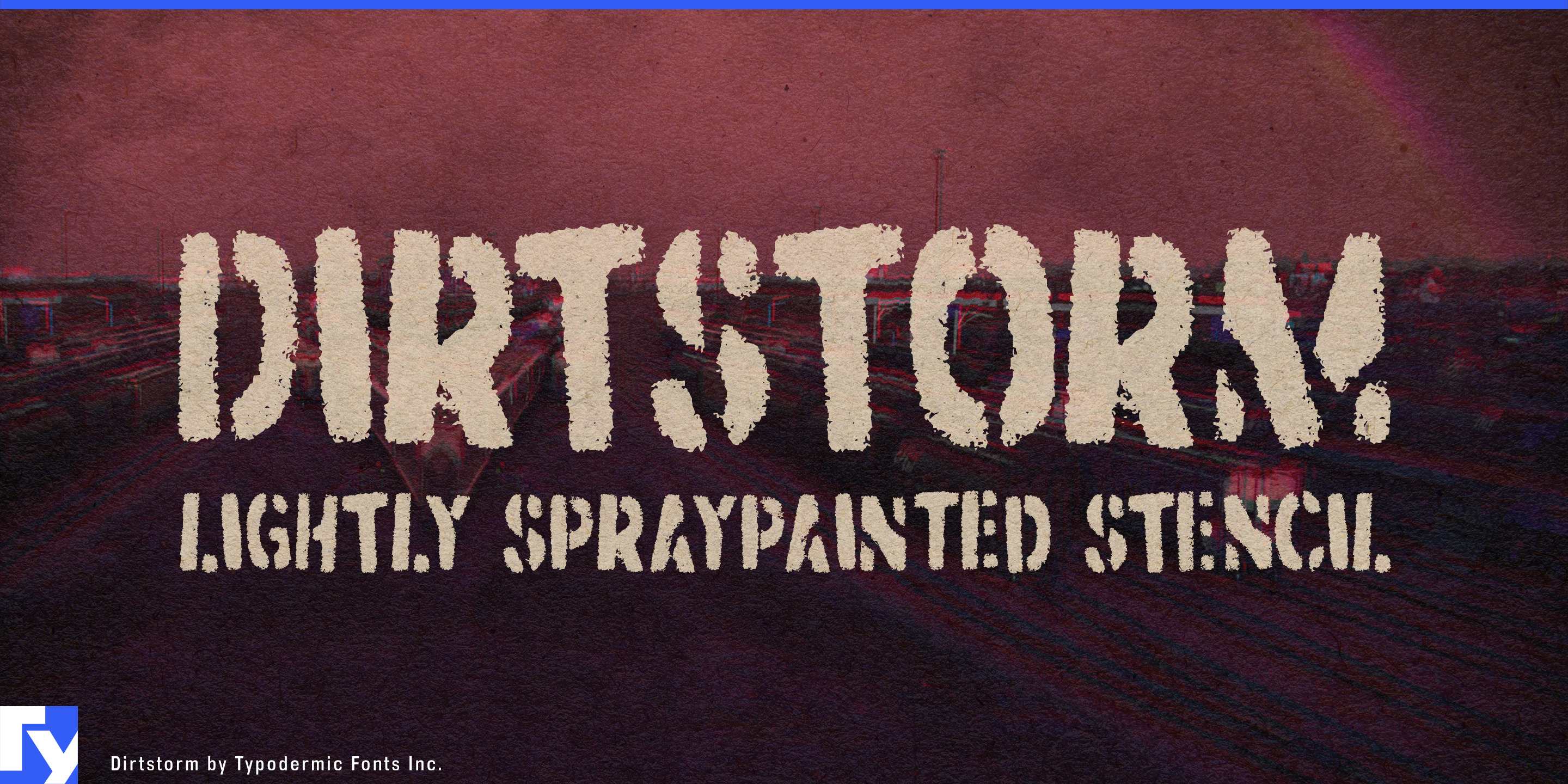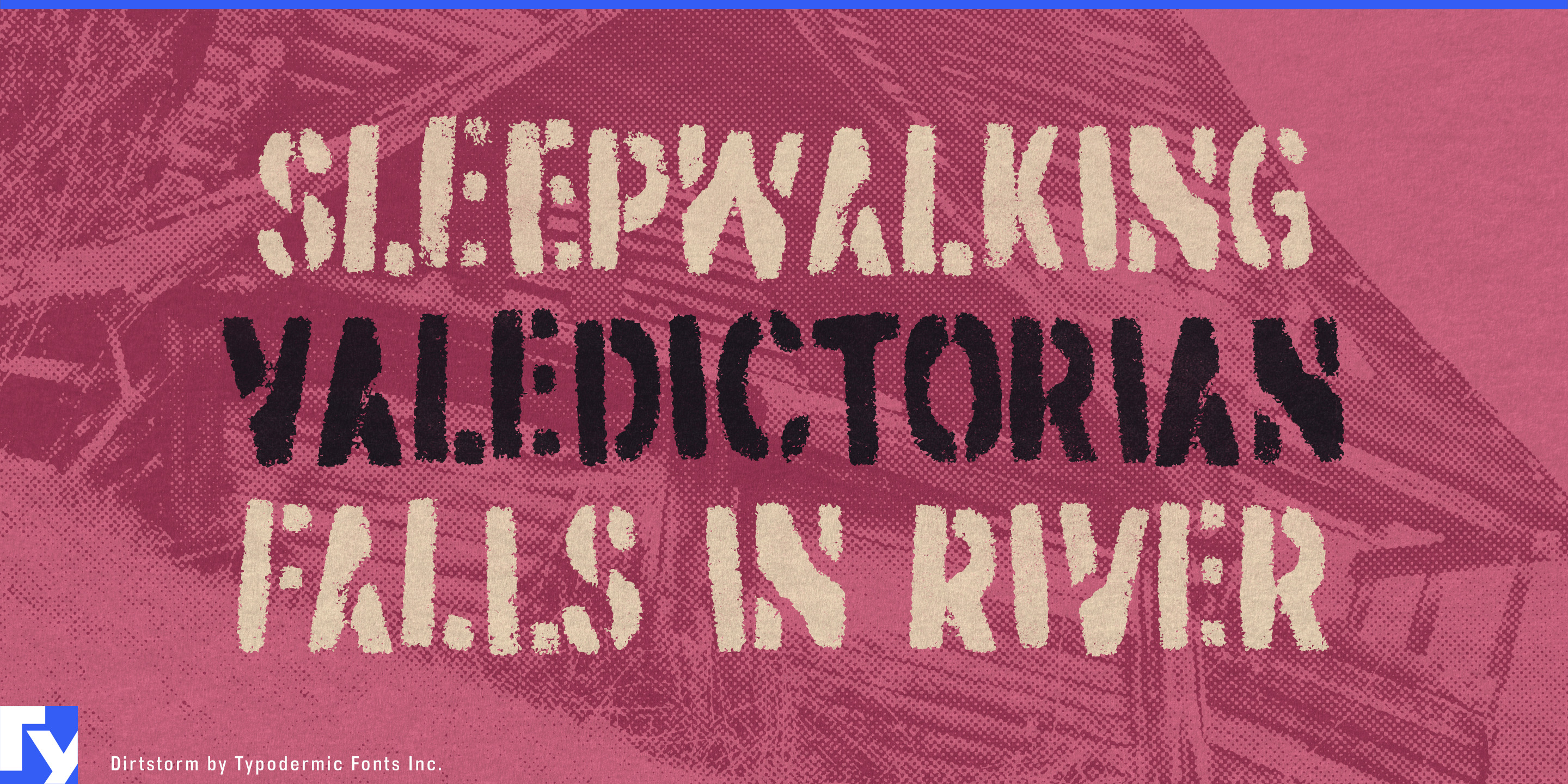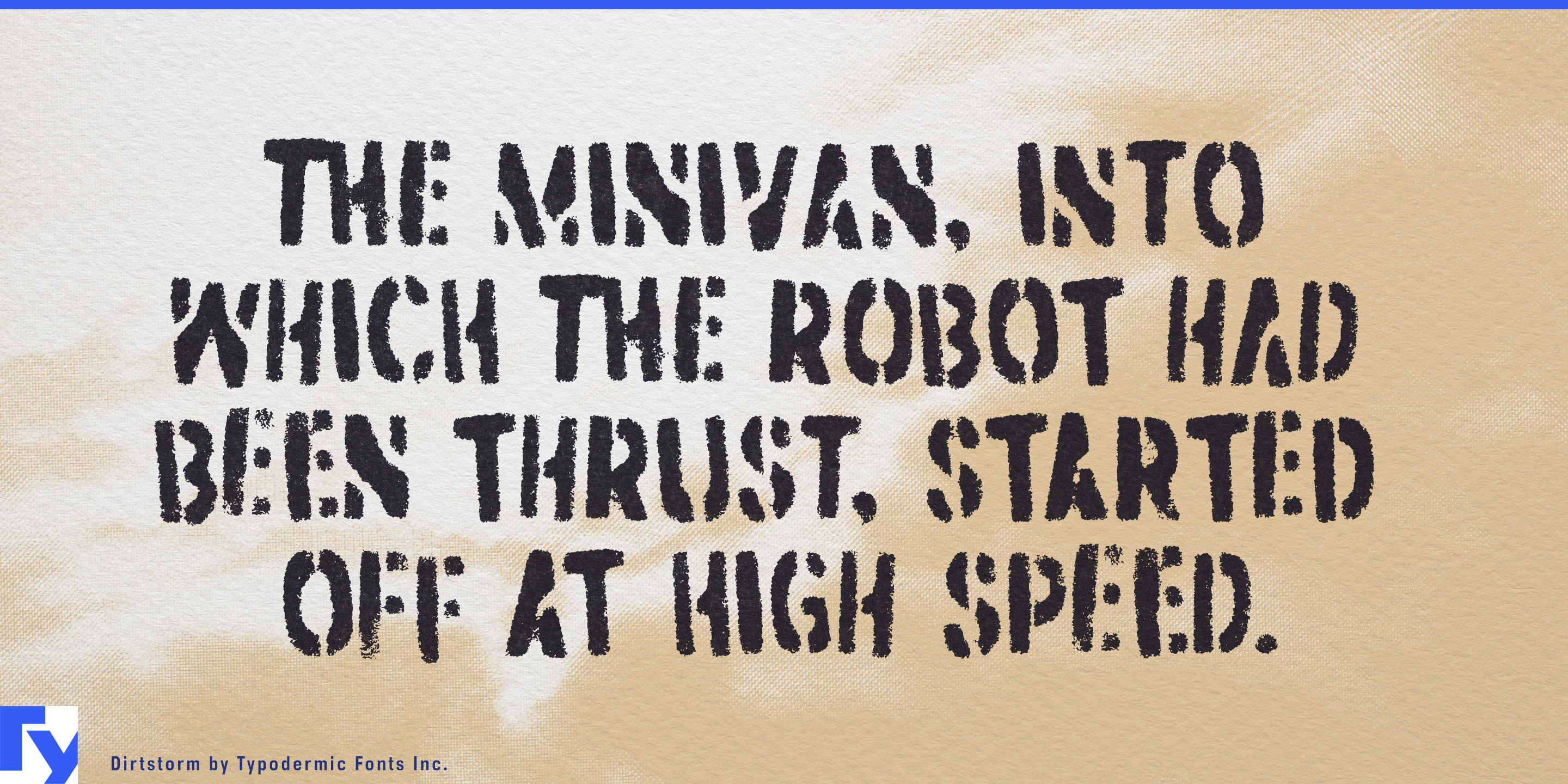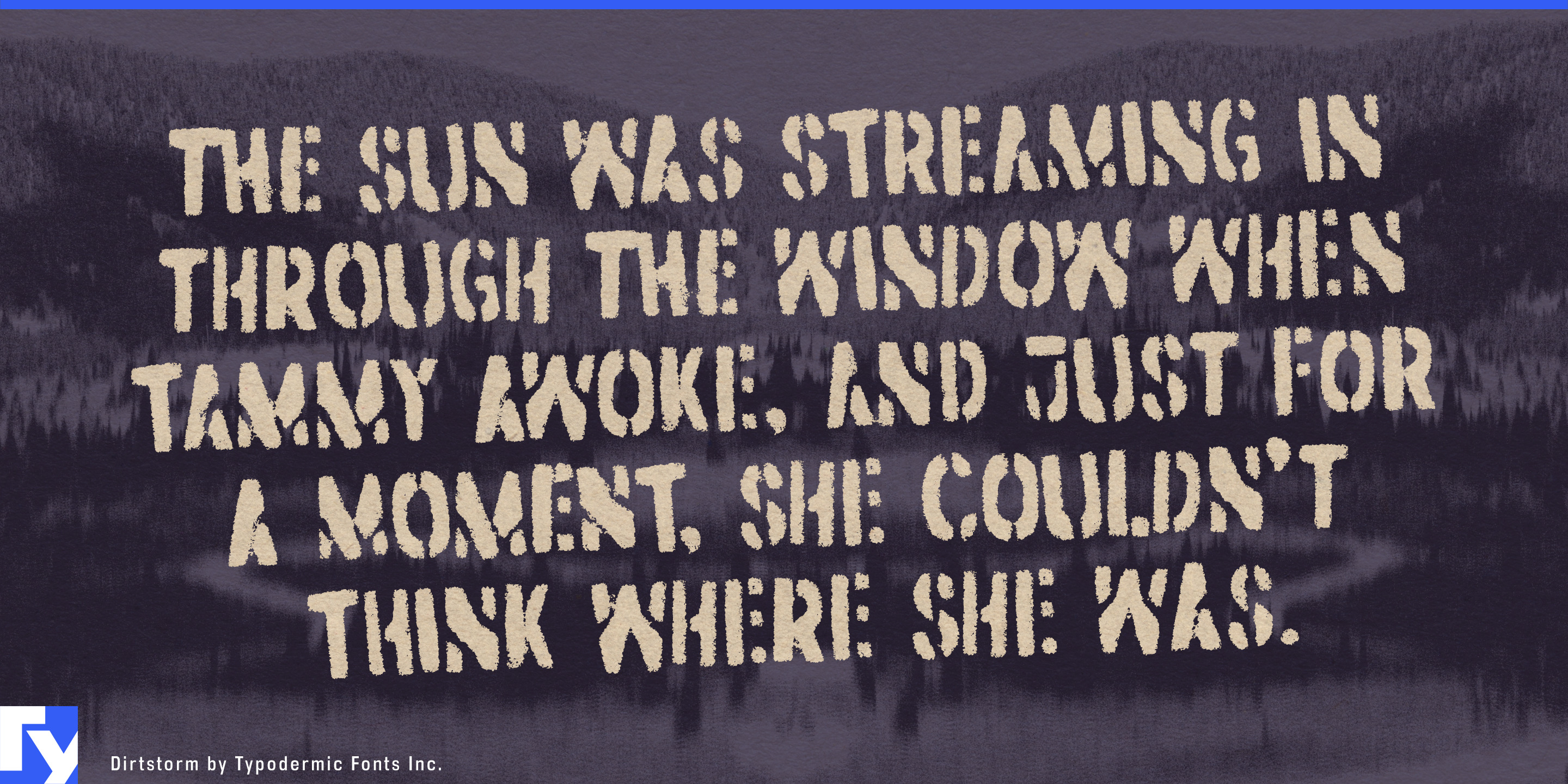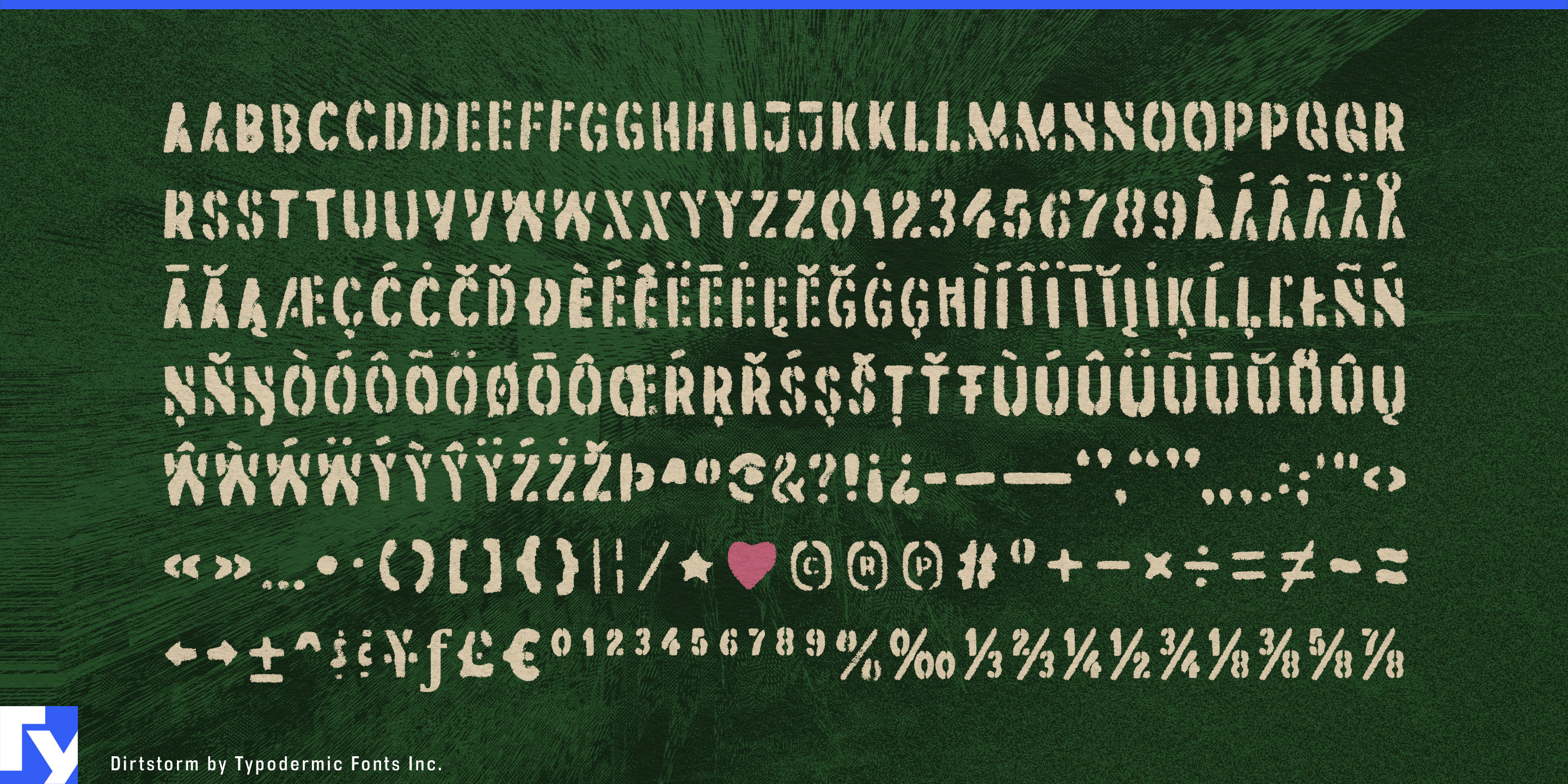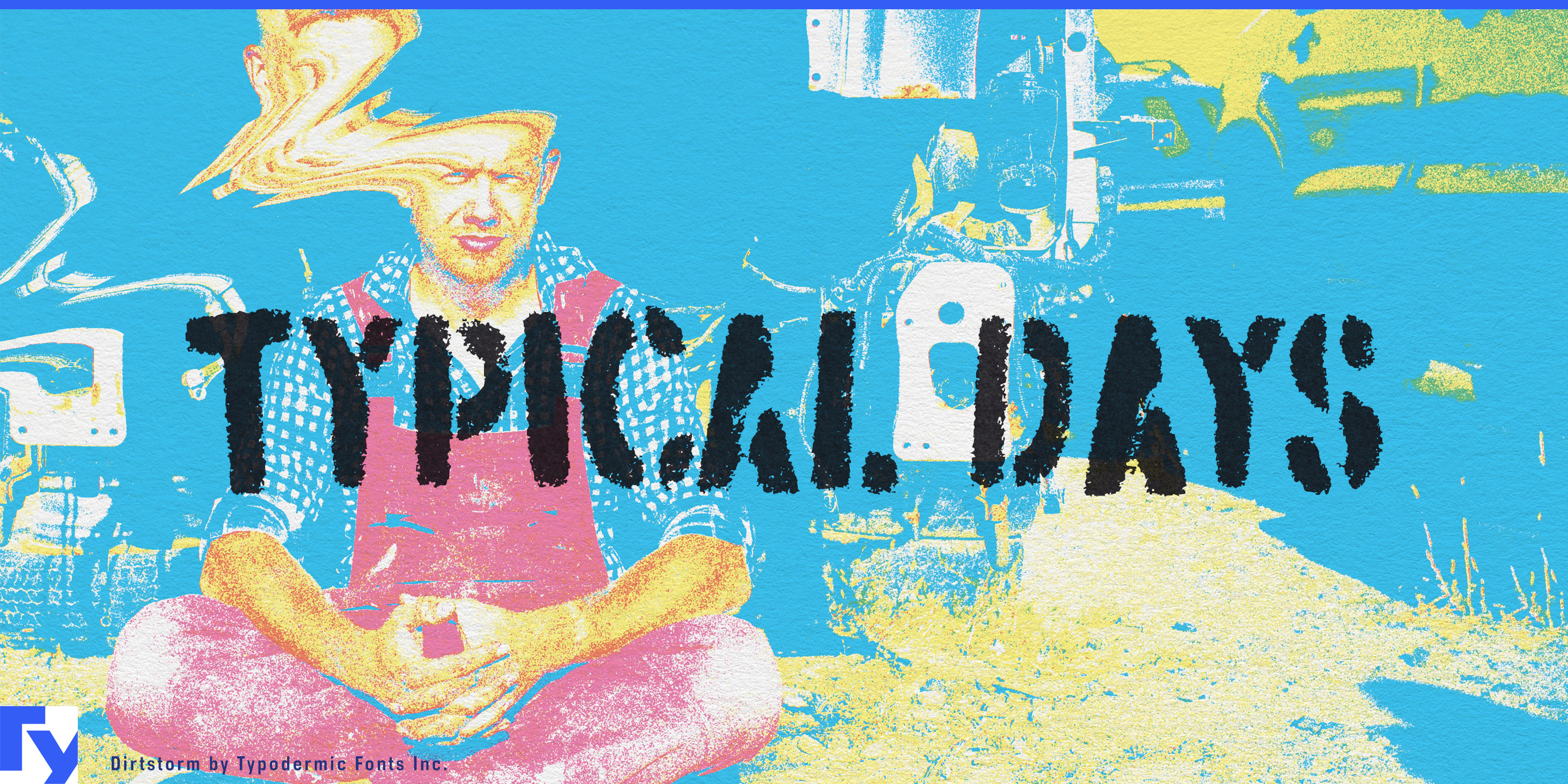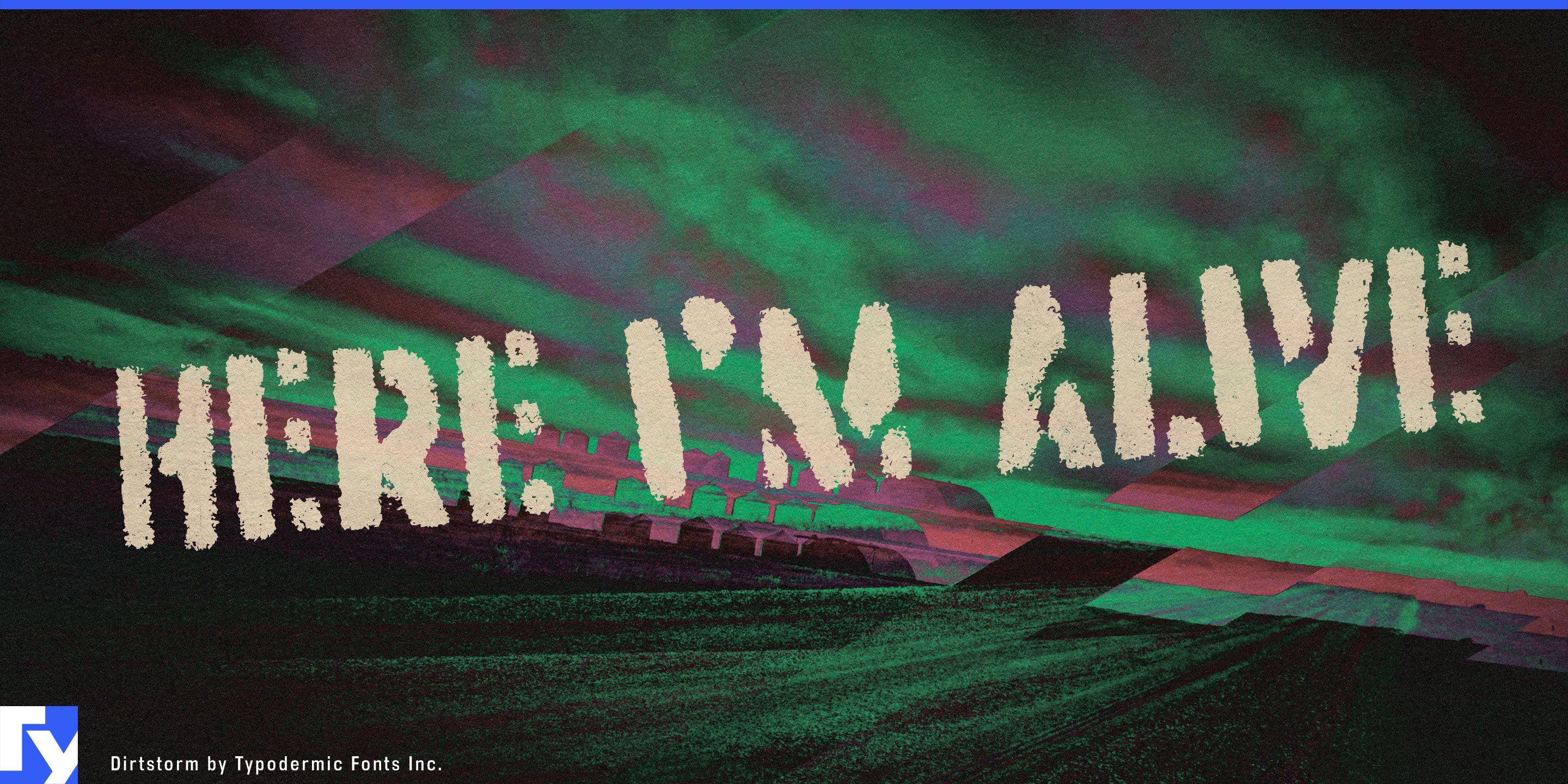
Dirtstorm is a hand-cut street stencil typeface. Common character sequences will be automatically substituted with bespoke combos for a more realistic effect if your application supports OpenType ligatures. This tattered, handcrafted typeface will convey your message in a distinct, grungy tone. Most Latin-based European writing systems are supported, including the following languages. Afaan Oromo, Afar, Afrikaans, Albanian, Alsatian, Aromanian, Aymara, Bashkir (Latin), Basque, Belarusian (Latin), Bemba, Bikol, Bosnian, Breton, Cape Verdean, Creole, Catalan, Cebuano, Chamorro, Chavacano, Chichewa, Crimean Tatar (Latin), Croatian, Czech, Danish, Dawan, Dholuo, Dutch, English, Estonian, Faroese, Fijian, Filipino, Finnish, French, Frisian, Friulian, Gagauz (Latin), Galician, Ganda, Genoese, German, Greenlandic, Guadeloupean Creole, Haitian Creole, Hawaiian, Hiligaynon, Hungarian, Icelandic, Ilocano, Indonesian, Irish, Italian, Jamaican, Kaqchikel, Karakalpak (Latin), Kashubian, Kikongo, Kinyarwanda, Kirundi, Kurdish (Latin), Latvian, Lithuanian, Lombard, Low Saxon, Luxembourgish, Maasai, Makhuwa, Malay, Maltese, Māori, Moldovan, Montenegrin, Ndebele, Neapolitan, Norwegian, Novial, Occitan, Ossetian (Latin), Papiamento, Piedmontese, Polish, Portuguese, Quechua, Rarotongan, Romanian, Romansh, Sami, Sango, Saramaccan, Sardinian, Scottish Gaelic, Serbian (Latin), Shona, Sicilian, Silesian, Slovak, Slovenian, Somali, Sorbian, Sotho, Spanish, Swahili, Swazi, Swedish, Tagalog, Tahitian, Tetum, Tongan, Tshiluba, Tsonga, Tswana, Tumbuka, Turkish, Turkmen (Latin), Tuvaluan, Uzbek (Latin), Venetian, Vepsian, Võro, Walloon, Waray-Waray, Wayuu, Welsh, Wolof, Xhosa, Yapese, Zapotec Zulu and Zuni.